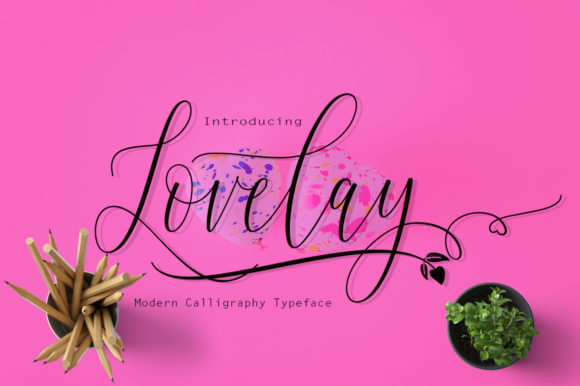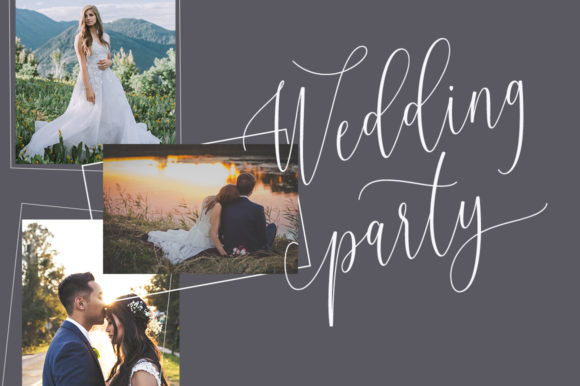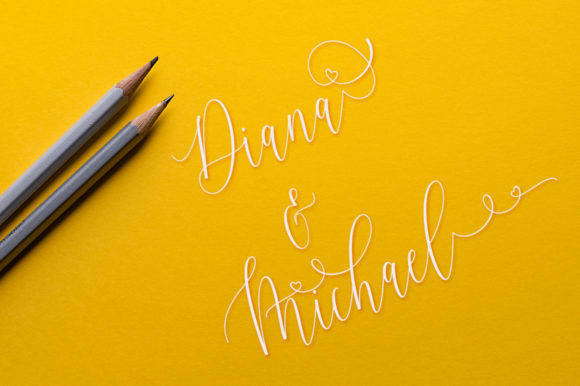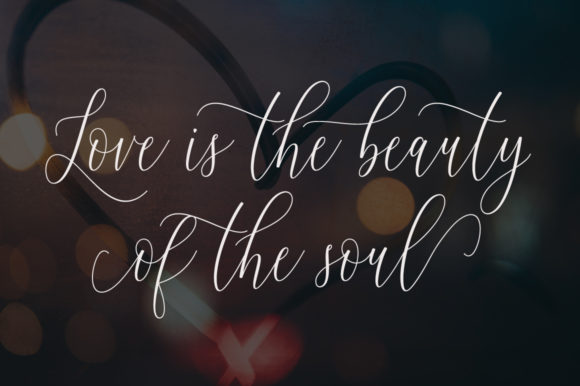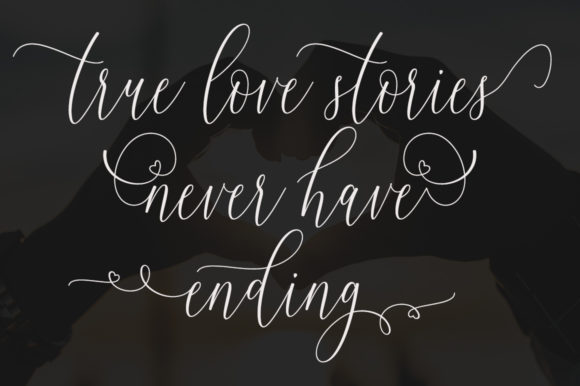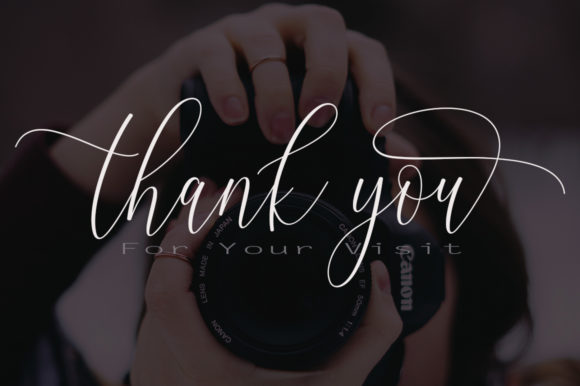
HomeScript FontsLovelay Font Script Fonts Lovelay Font FacebookXPinterestWhatsApp Lovelay Font Poster 2 Lovelay Font Poster 3 Lovelay Font Poster 4 Lovelay Font Poster 5 Lovelay Font Poster 6 Lovelay Font Poster 7 About Lovelay Font The Lovelay is an elegant handmade script. It’s perfect for adding an upscale and chic look to your designs. DOWNLOAD ON CREATIVE FABRICAThis font is sold and delivered by Creative Fabrica. Font Canyon may earn a commission if you buy through this link. People also explored General Merchandise JNL Font Gentle Boy Font Euipe Font Chalisa Font Baskets Monogram Font Ealeah Ceblok Font Sheyla Font Dandelion Font Blacklist Font 386 0 TagsLovelay Font Previous articleCantona FontNext articleBonzer Dreamer Font LEAVE A REPLY Cancel reply Comment: Please enter your comment! Name:* Please enter your name here Email:* You have entered an incorrect email address! Please enter your email address here Website: Save my name, email, and website in this browser for the next time I comment. Personal Use Free Twisty Girlz Personal Use Free Read more about this font Soria Personal Use Free Read more about this font Arc Personal Use Free Read more about this font Kredit Personal Use Free Read more about this font BLOG Elegant Wedding Invitation Fonts – Handwritten & Script Fonts Elegant Wedding Invitation Fonts Your wedding day is one of the most important moments of your life, and every detail matters—including your invitation design. Our... How to Install and Use Fonts on Windows, macOS, and Web Projects Using Fonts in Digital Marketing: Tips to Strengthen Your Brand Identity Modern Sans-Serif Fonts That Brands Love in 2025